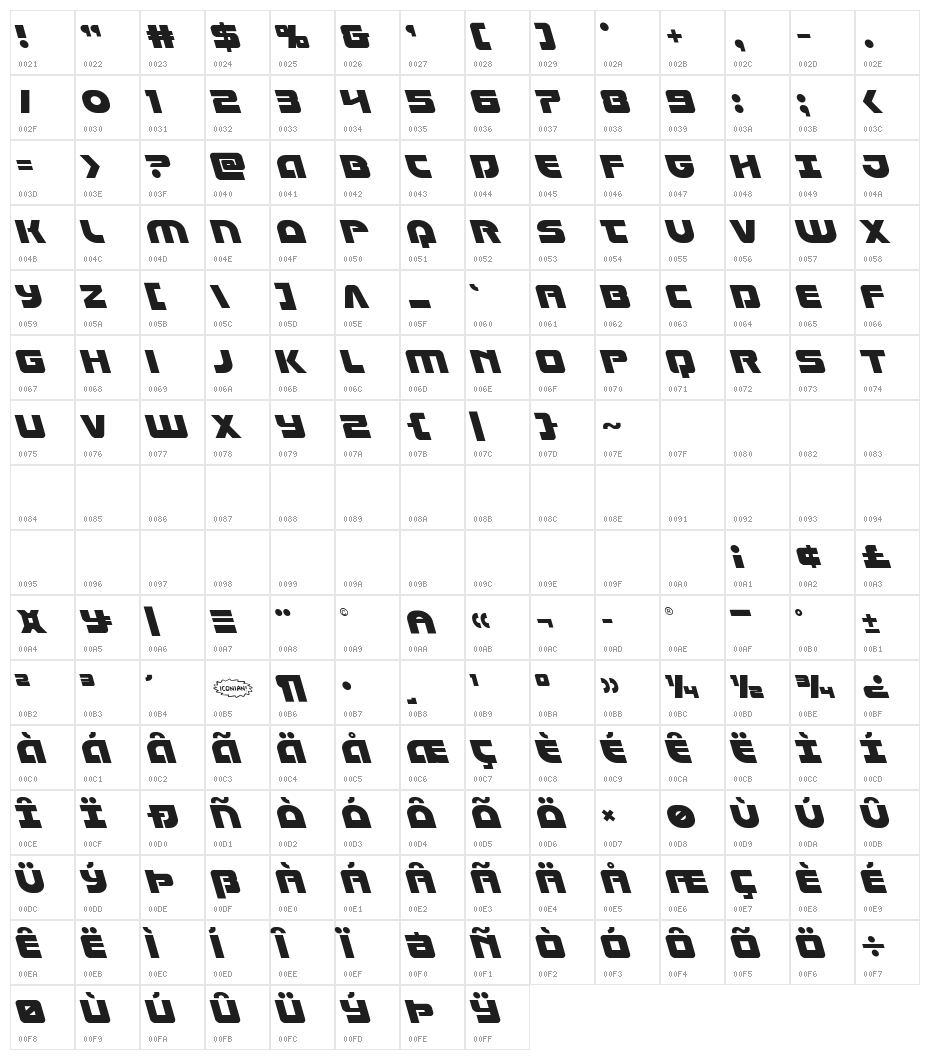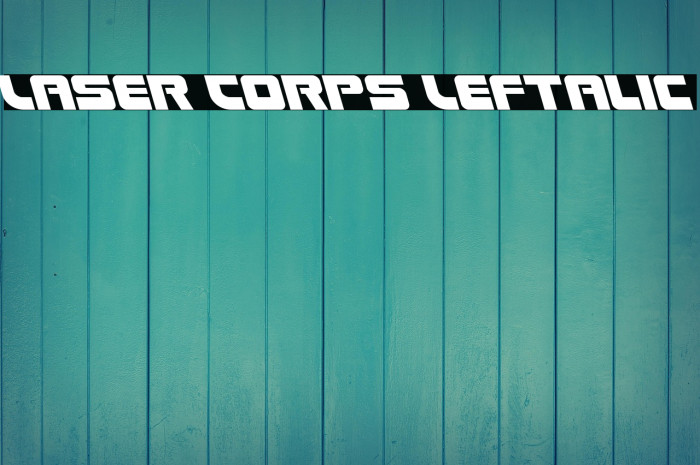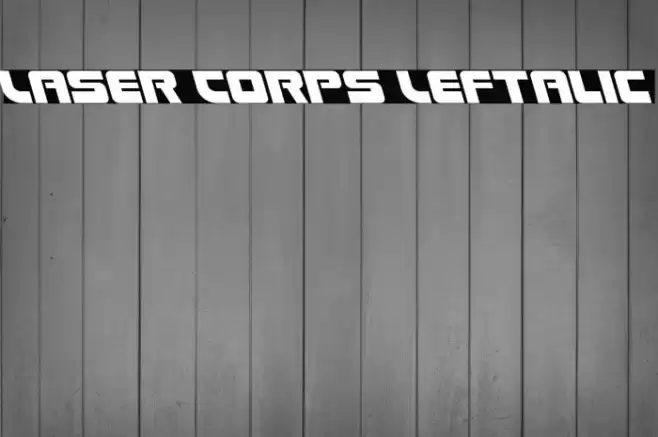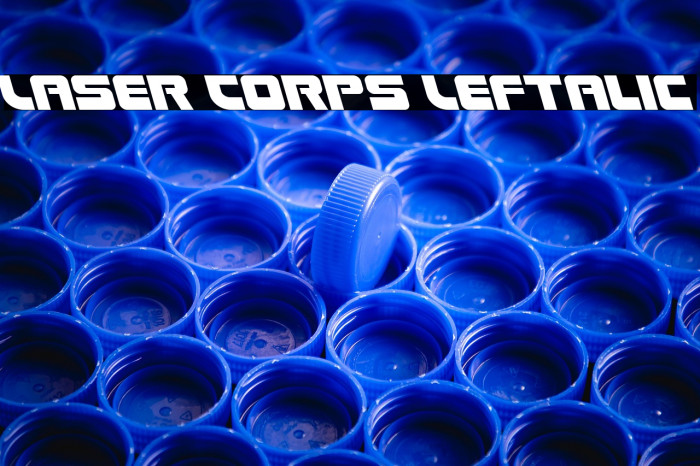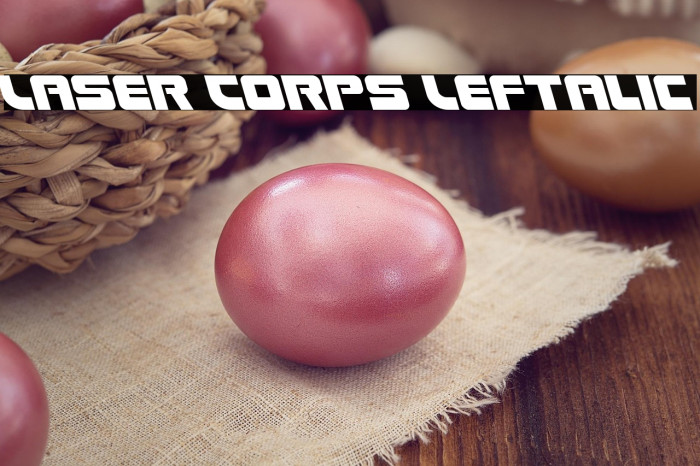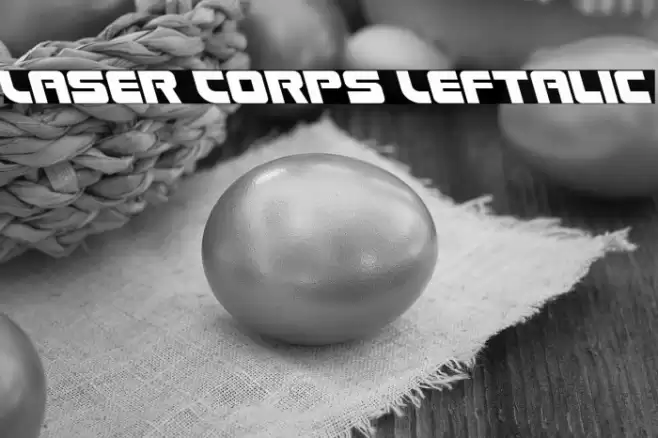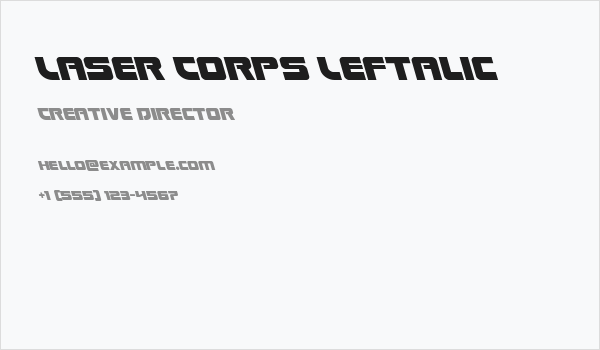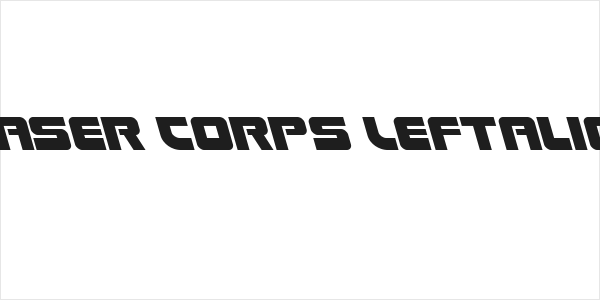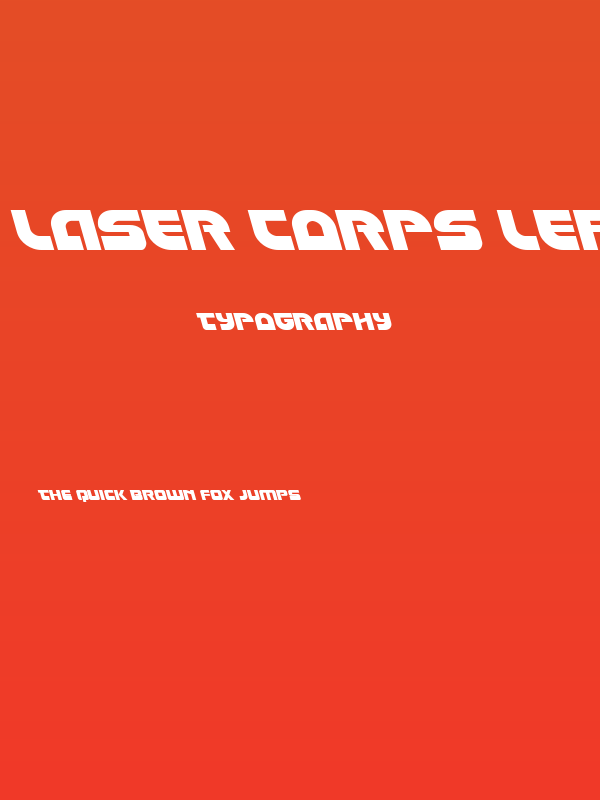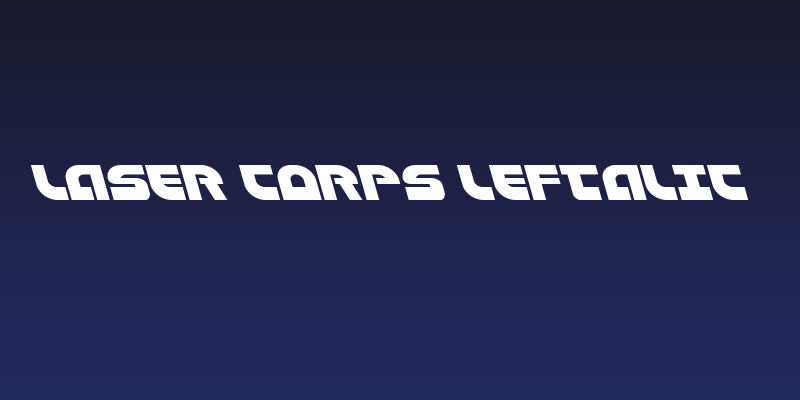
Laser Corps Leftalic Font
Laser Corps Leftalic Description
This font features a bold, futuristic design with angular and geometric shapes. The characters are slightly slanted, giving a dynamic and forward-moving appearance. The uppercase and lowercase letters maintain a consistent style, with sharp edges and a blocky structure. The numbers and special characters follow the same aesthetic, ensuring uniformity across all glyphs. This font's unique style makes it stand out, ideal for projects that require a modern and edgy look.
| Proposed Projects | Ideal for sci-fi themed designs, video game graphics, tech branding, and futuristic posters. |